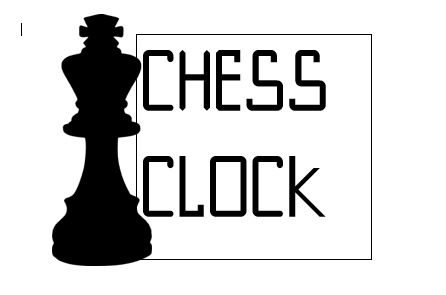
Inconsistent font
true: chess clocks only use 7 segment displays, and arial for "min:sec", "hr:min", "byo-omi" and others.
CHESS CLOCKby Wet Ground (GreenToothFarm)